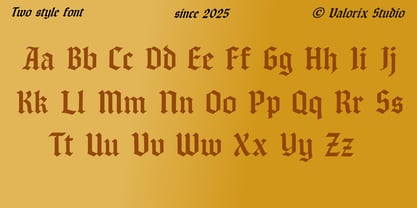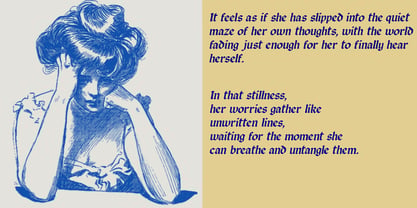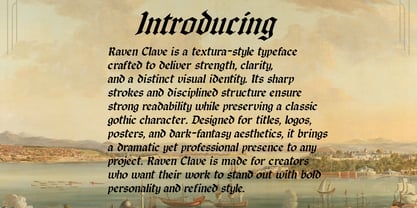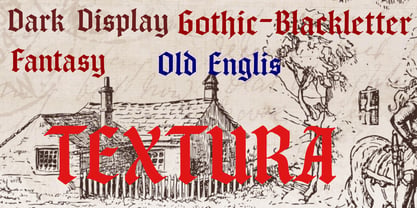
Raven Clave
Die Schriftfamilie Raven Clave wurde von Erick Rismawan Valorix entworfen und von Valorix Studio veröffentlicht. Raven Clave enthält 2 Stile und Familienpaketoptionen. Mehr über diese Familie
Raven Clave is a modern textura-typeface built for powerful, high-impact display work. Its sharp forms, vertical rhythm, and balanced contrast create a strong gothic presence while remaining clean and readable. Ideal for posters, logos, titles, and dark-fantasy visuals, Raven Clave delivers a bold, distinctive voice with refined craftsmanship and timeless character.